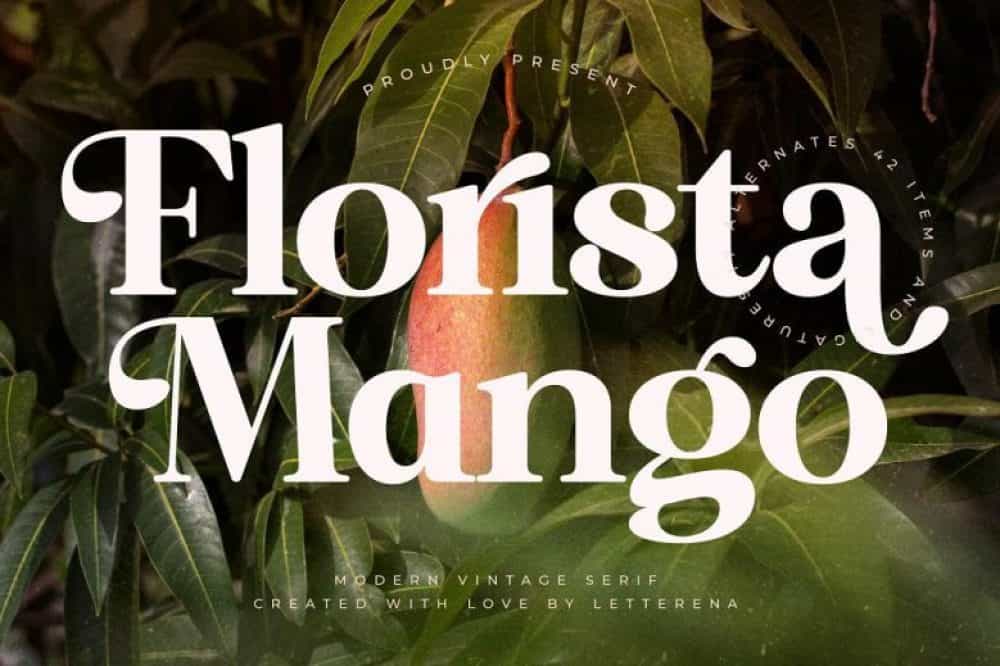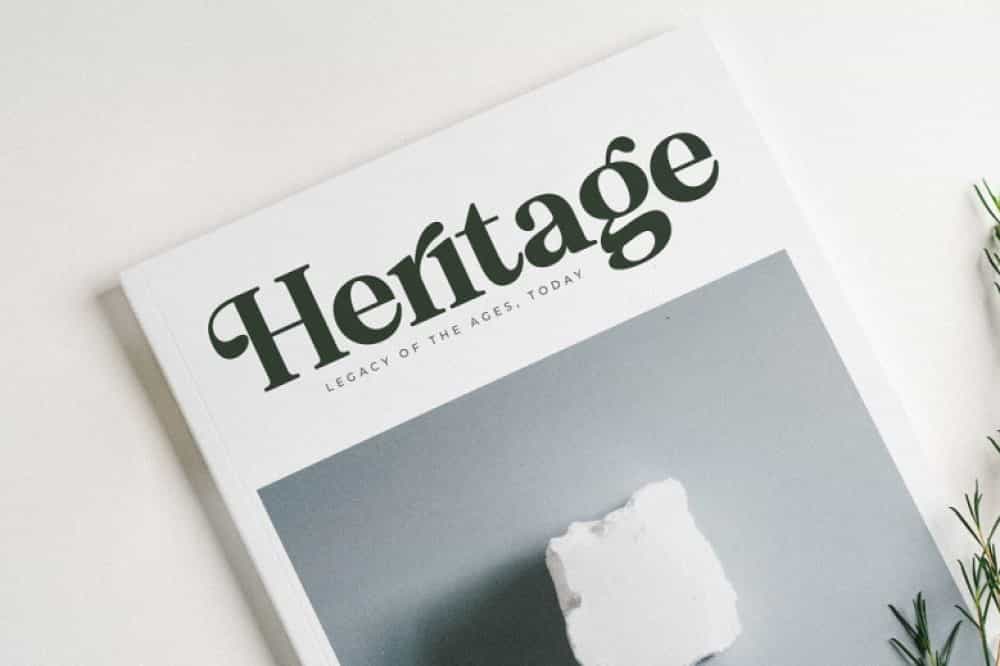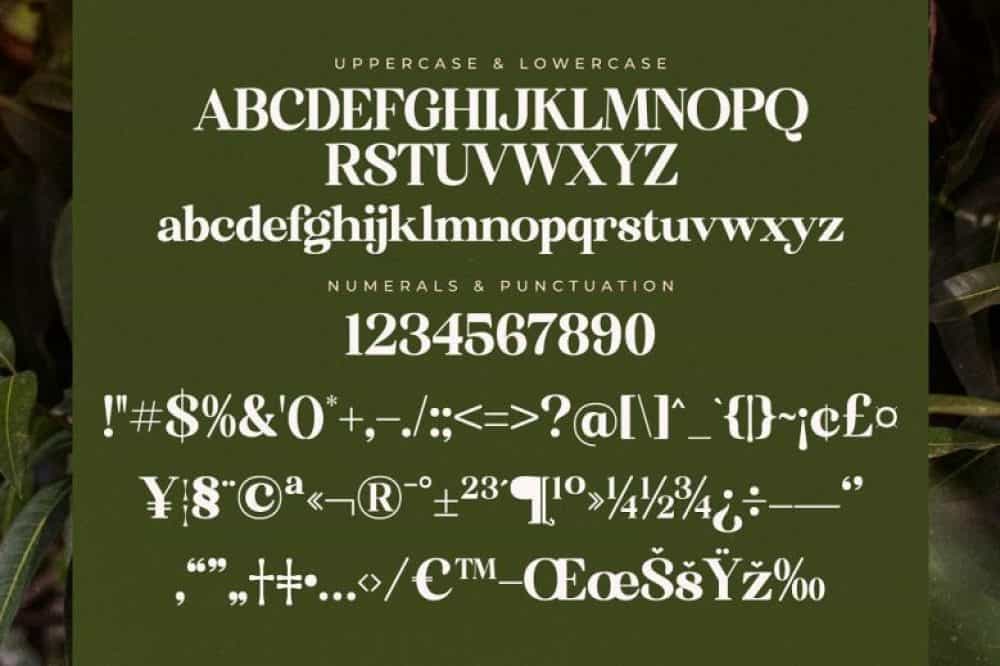
Florista Mango is a modern vintage serif font, from Letterena, it’s suitable for any projects such as: logos, branding projects, homeware designs, product packaging, mugs, quotes, posters, shopping bags, t-shirts, book covers, name card, invitation cards, greeting cards, label, special events, and all your other sophisticated and glamorous projects that require a taste of the Luxury Serif.